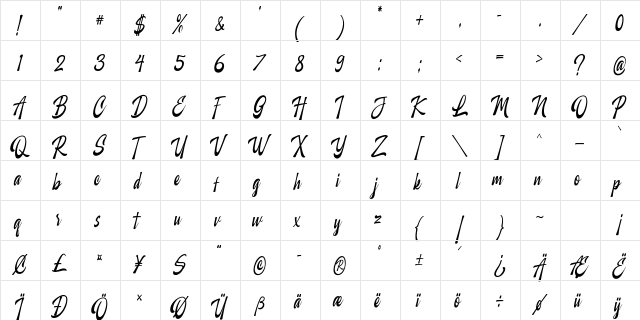
Marchlike Regular
| Designer | Ardian Nuvianto. 2020 |
Design Context for Marchlike Typeface
Marchlike is a composed and adaptable typeface that performs quietly and consistently across a wide range of design contexts.